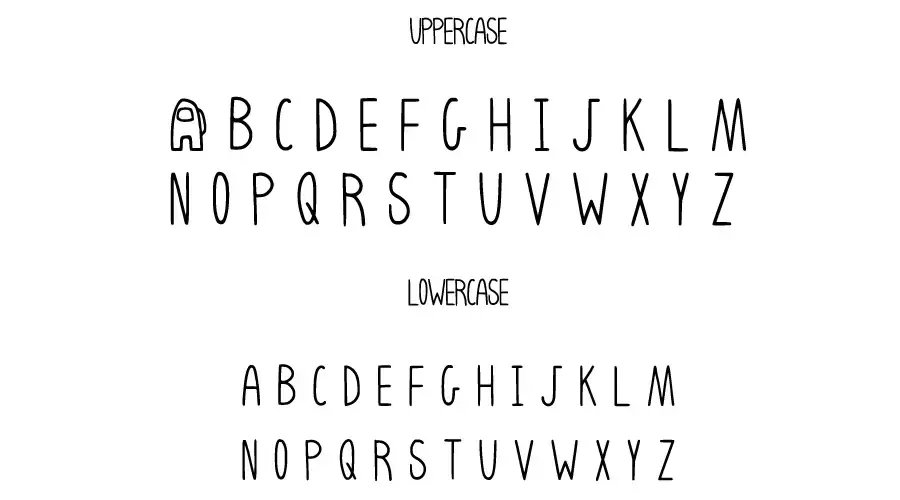
What font is used for Among Us?
The idea of the Among Us font comes from the logo of the popular video game Among Us. The Among Us font, also known as the Impostograph font, was created by a designer named JoviLikesMatchas in May 2022. It is a script font, which means that it has a hand-drawn or handwritten style. The font is available for personal use for free, with the option to make a donation to the designer.
The best usage of the Impostograph font, also known as the Among Us font, will depend on your specific needs and preferences. As a fan-made typeface based on the logo of the popular video game Among Us, the Impostograph font may be best suited for use in projects or designs related to the game or its theme. Some possible uses for the Impostograph font could include:
- Creating graphics or artwork for social media posts or fan websites
- Designing invitations or flyers for Among Us-themed events or parties
- Creating custom Among Us-themed merchandise, such as T-shirts or stickers
- Adding a fun and playful touch to personal projects or hobbies related to “Among Us”